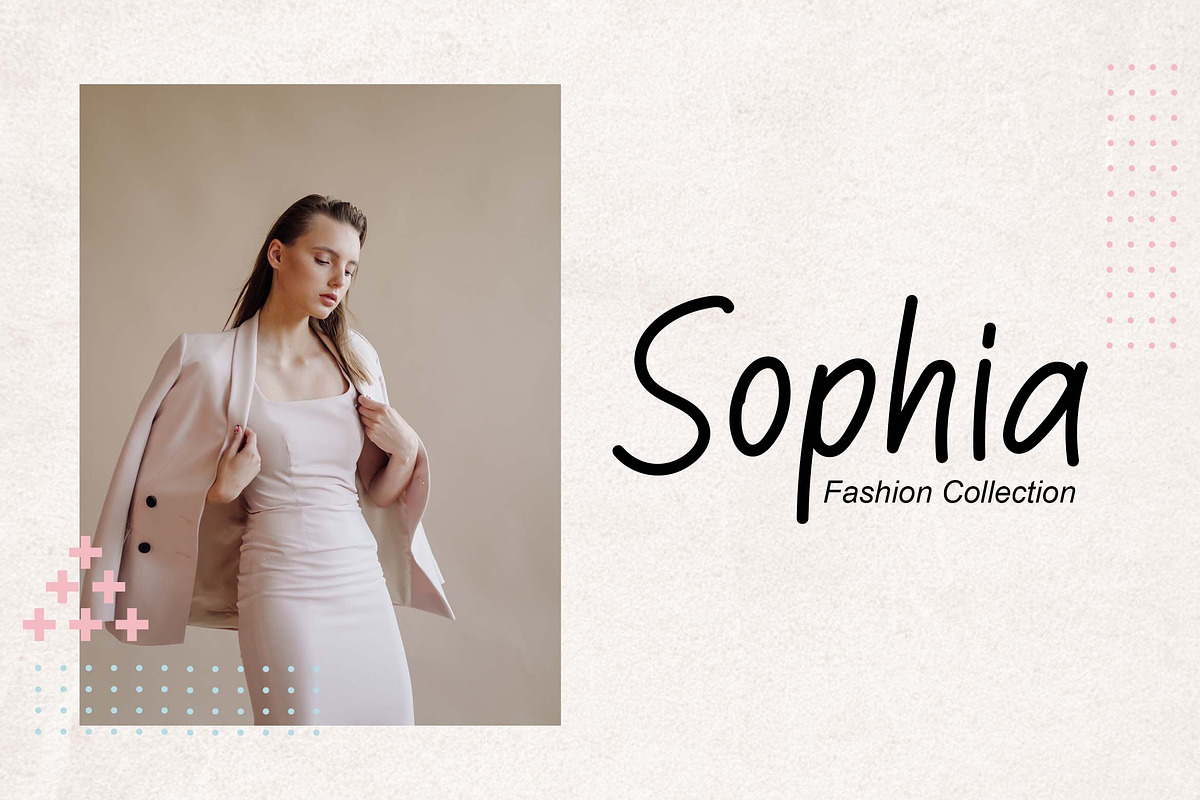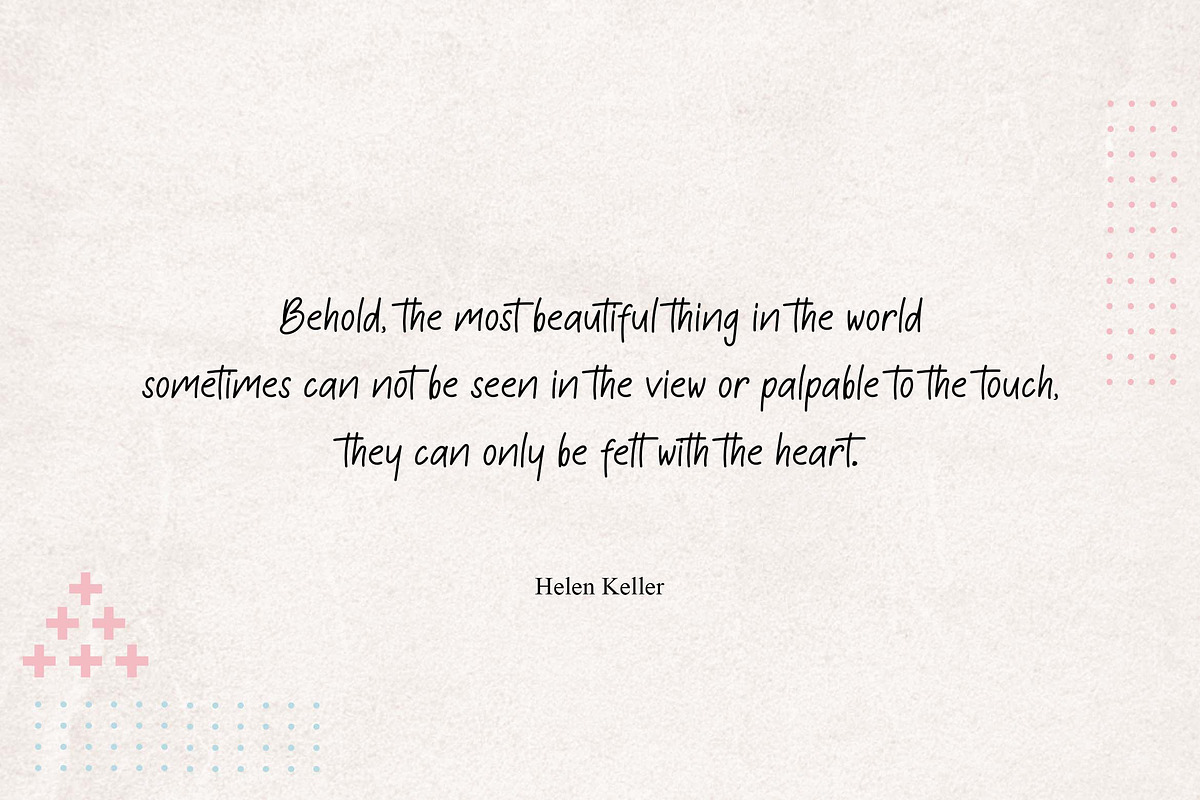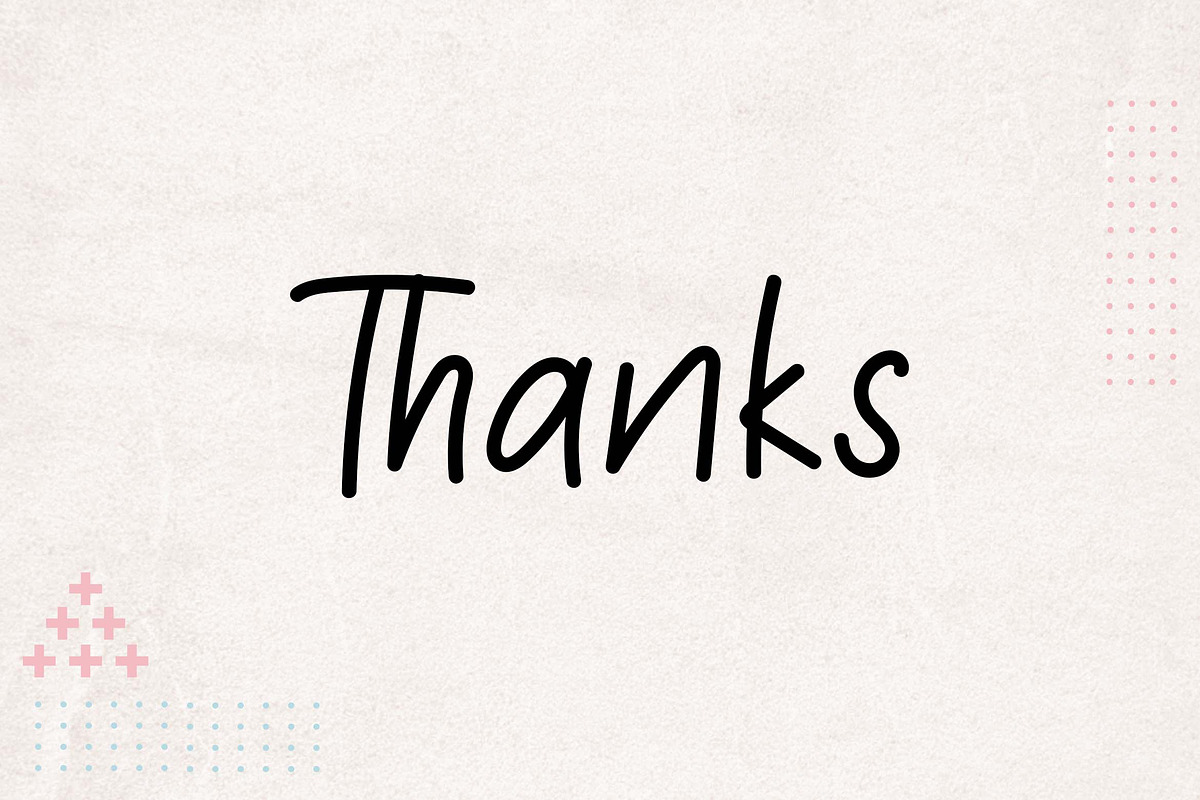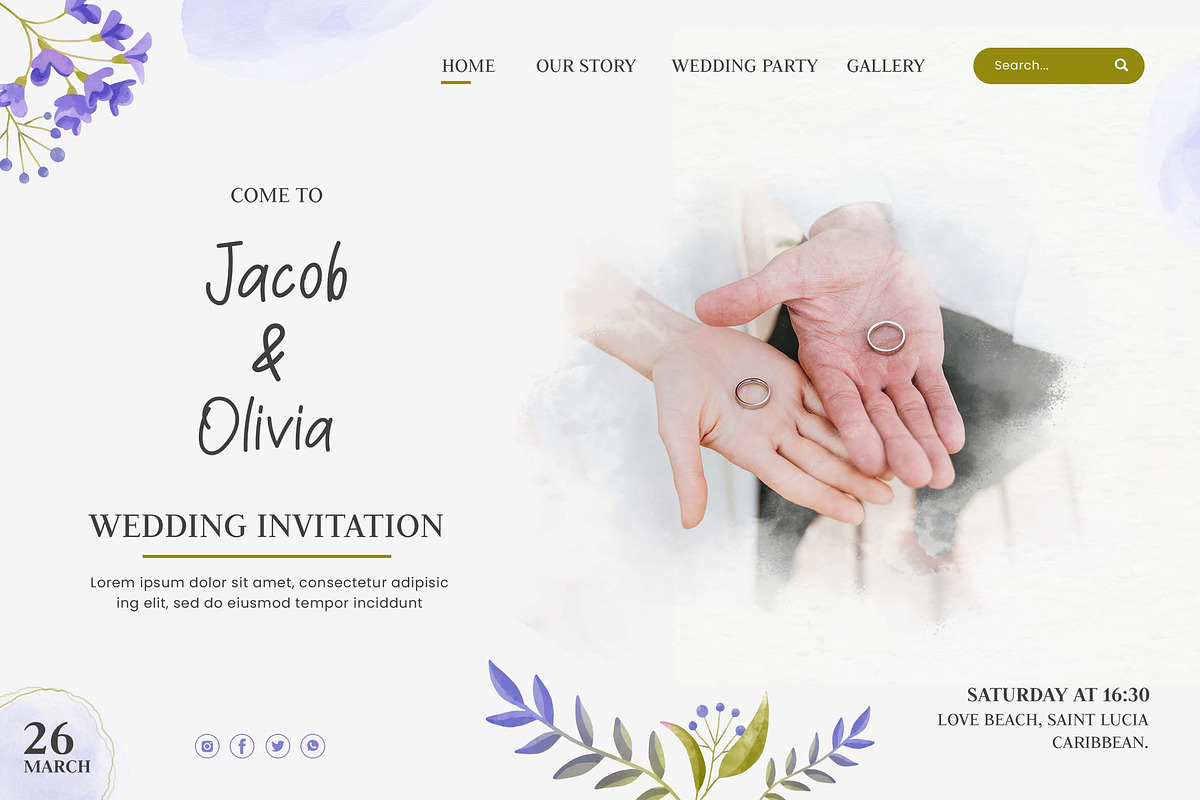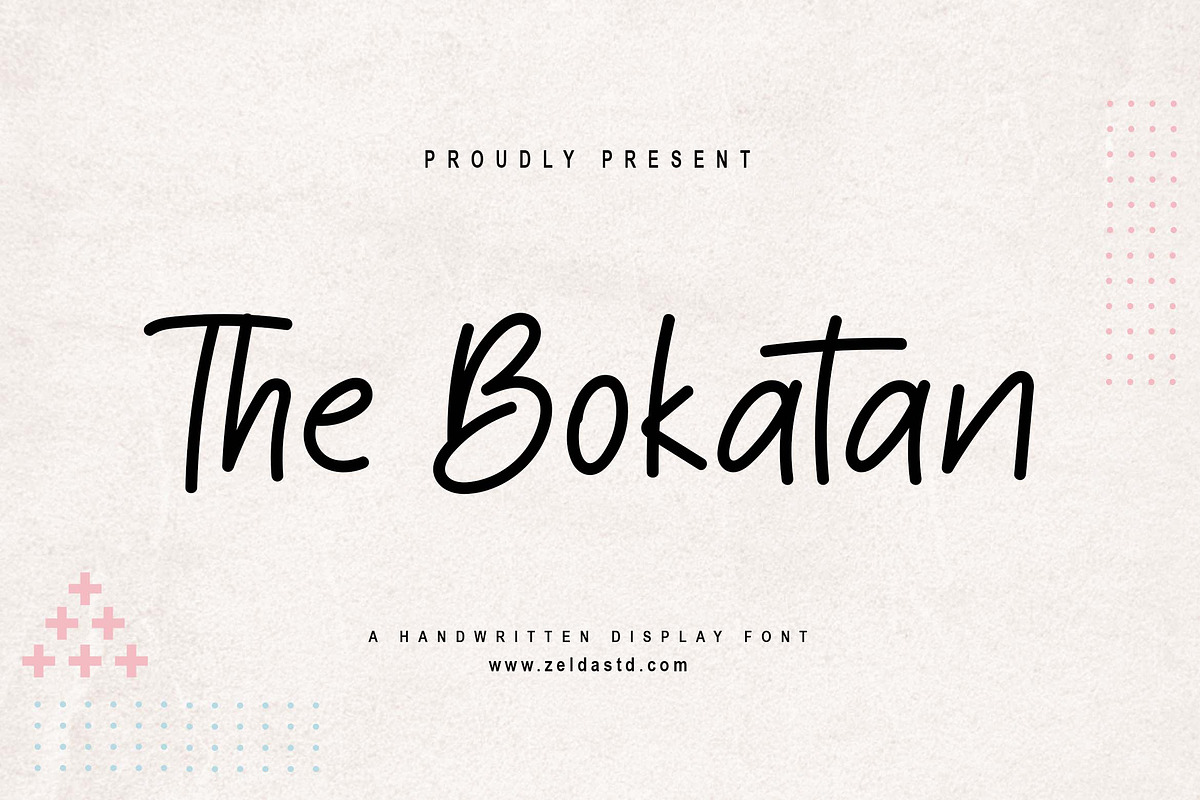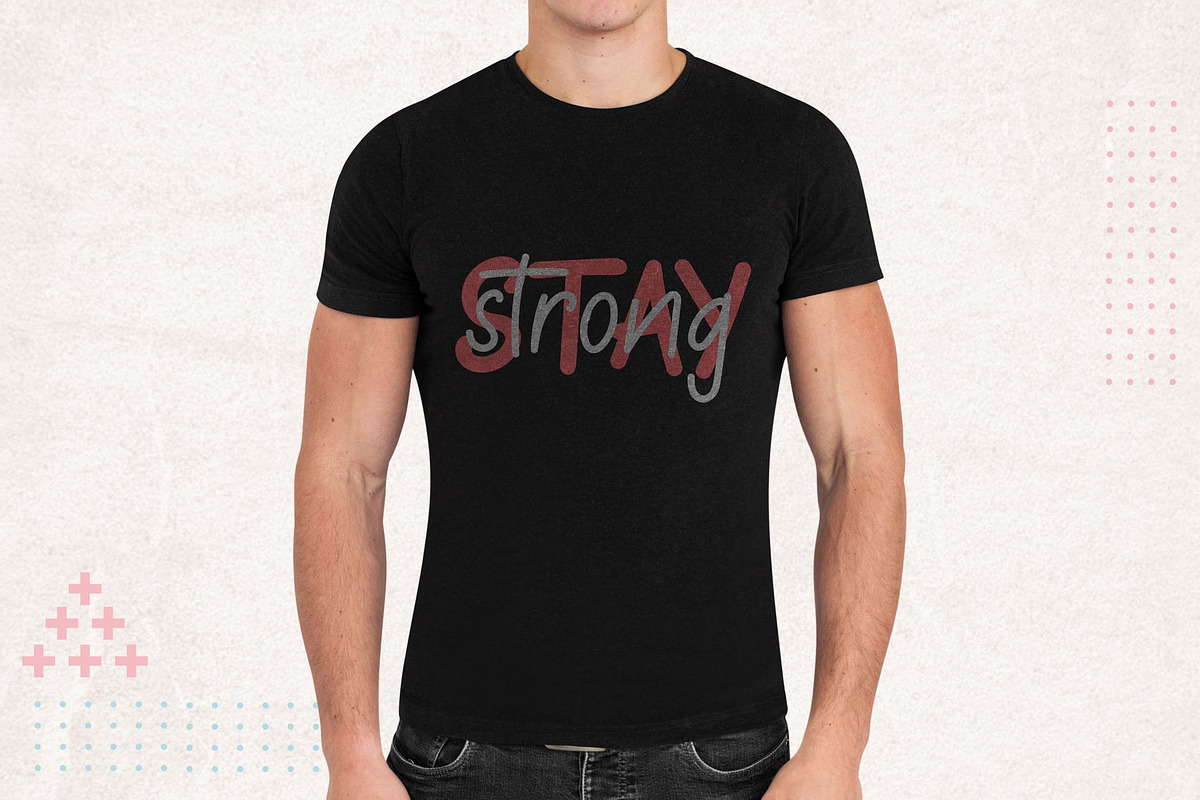
The Bokatan Font
The Bokatan is a handwritten display font with a strikingly authentic feel font is our new item that is suitable for your Posters. Great for Logo, Poster, Sticker, Jerseys, Invitation Cards, Brochure, etc.